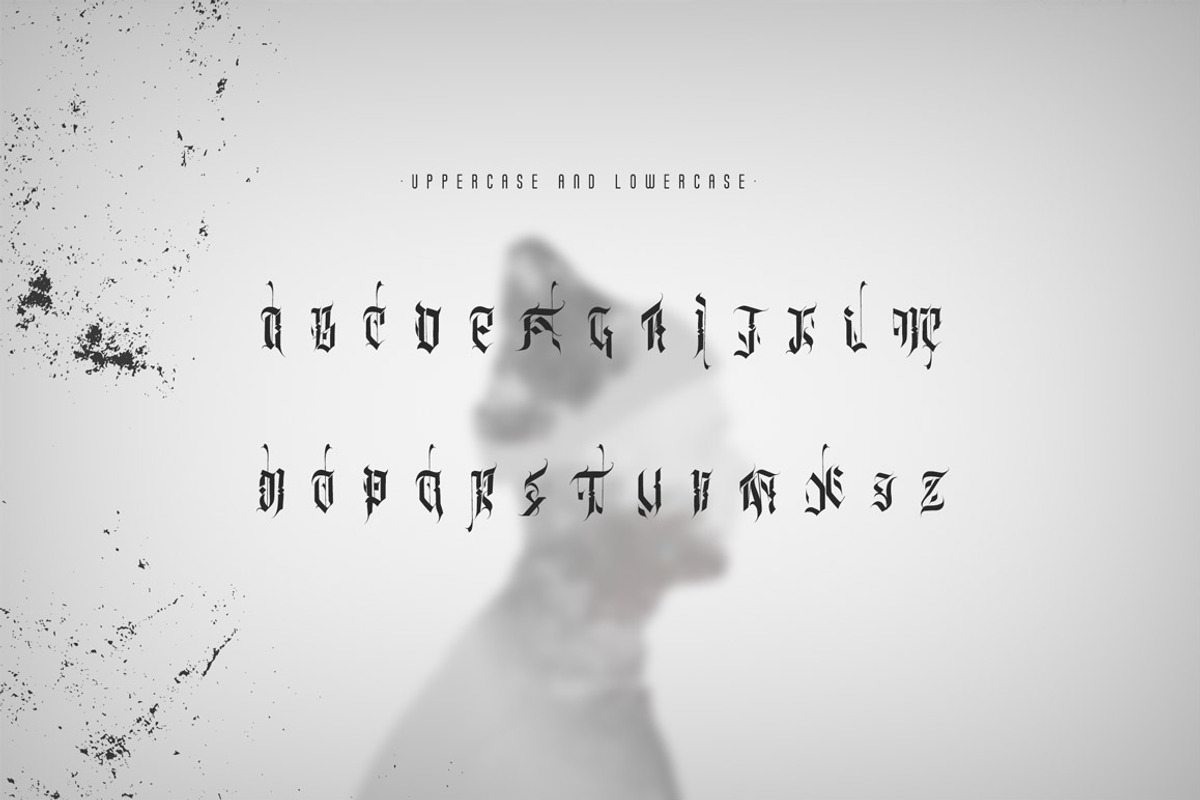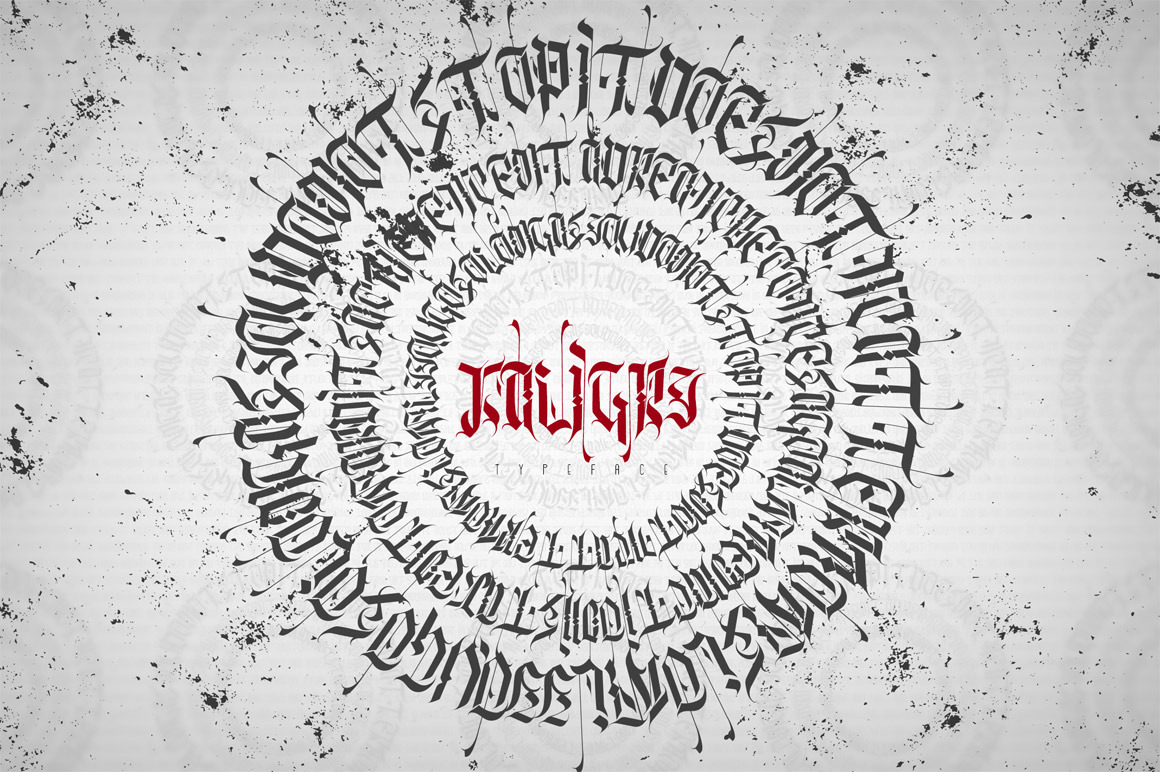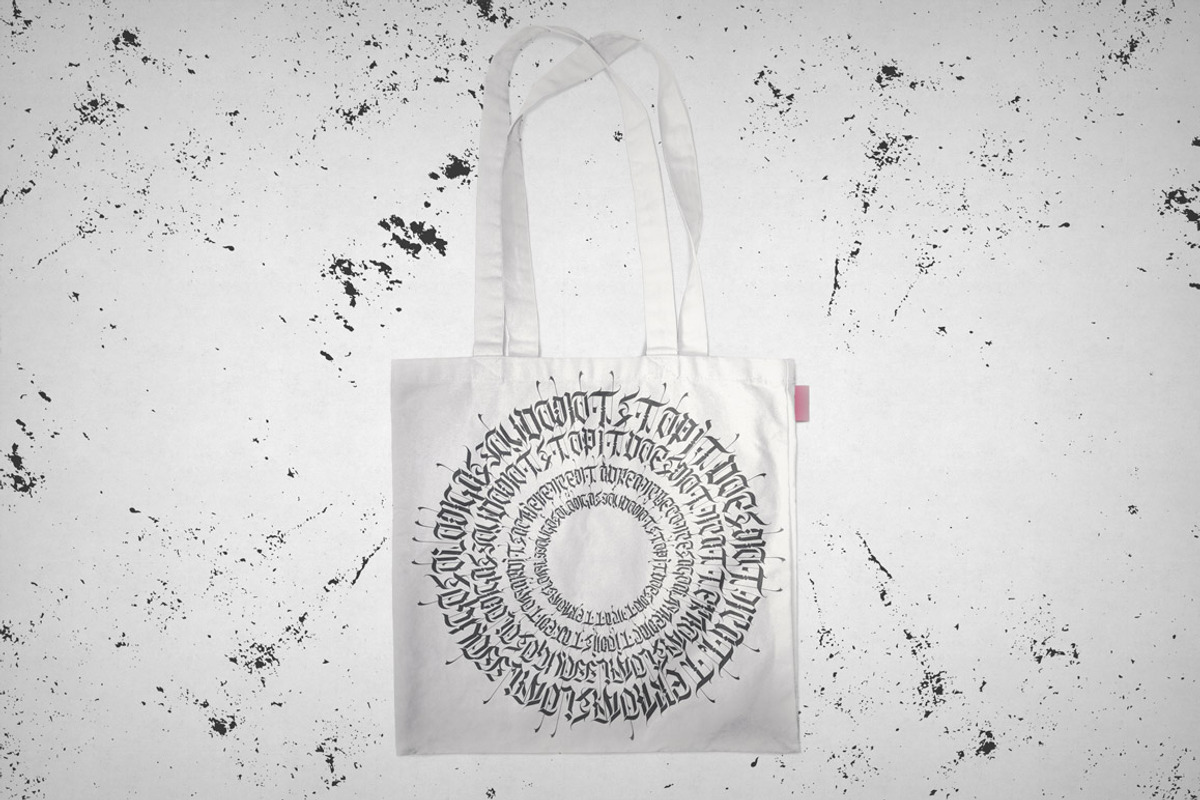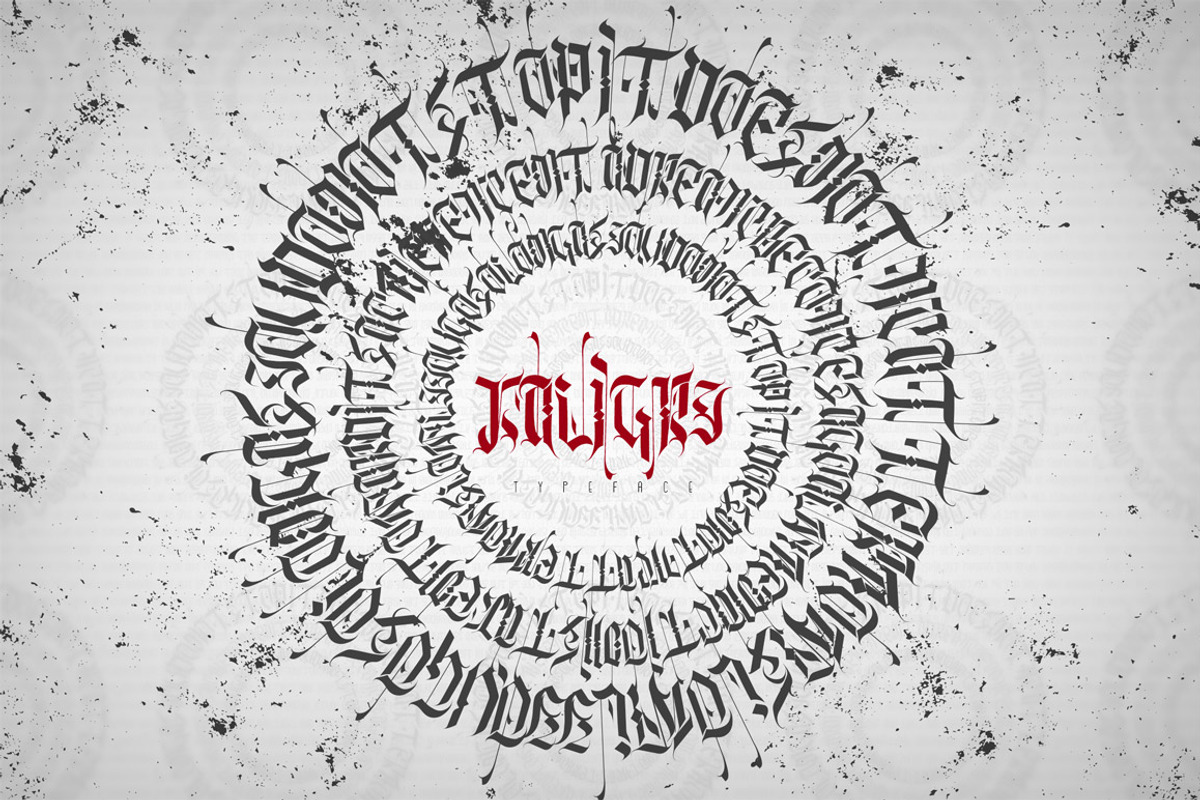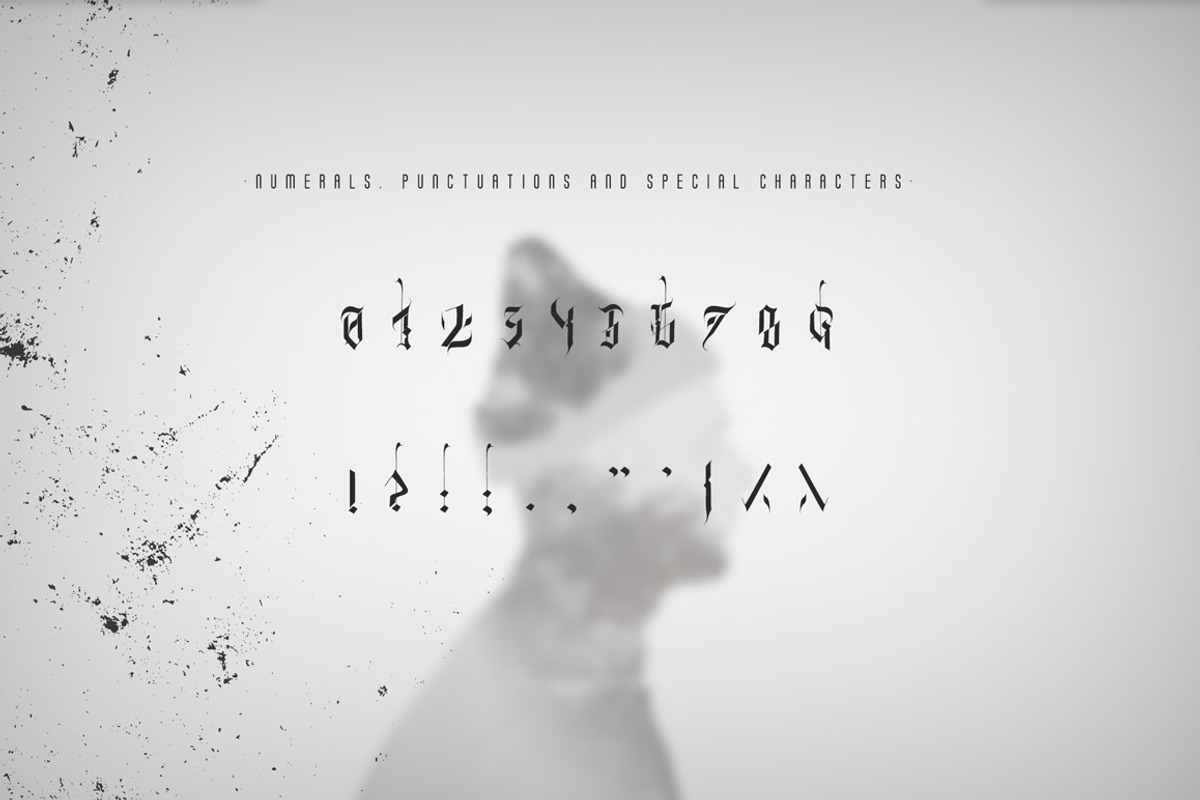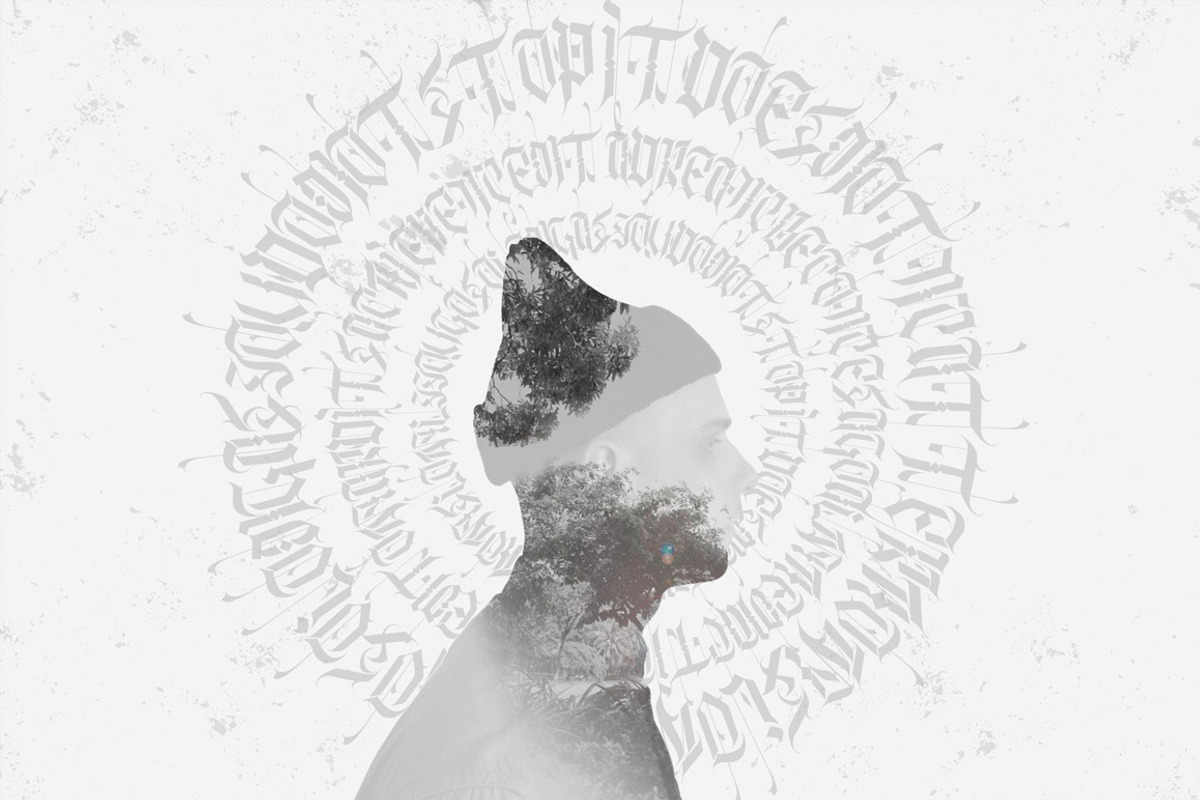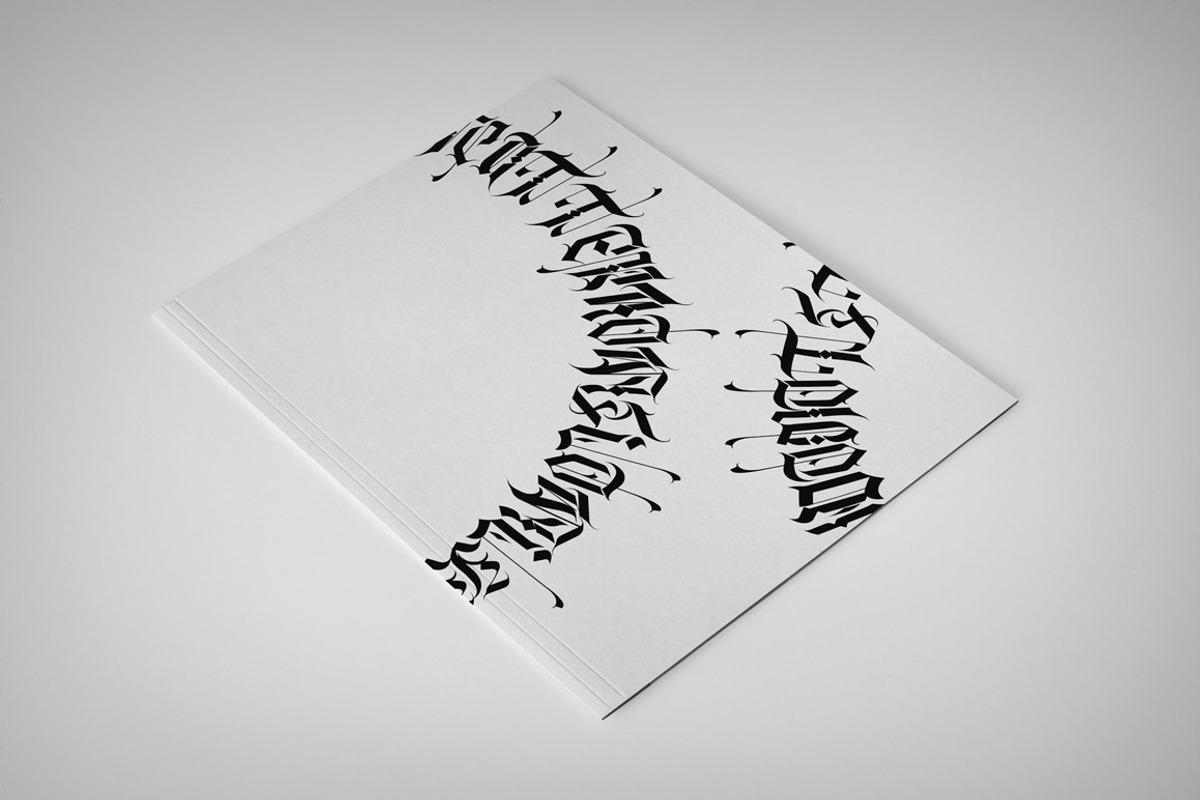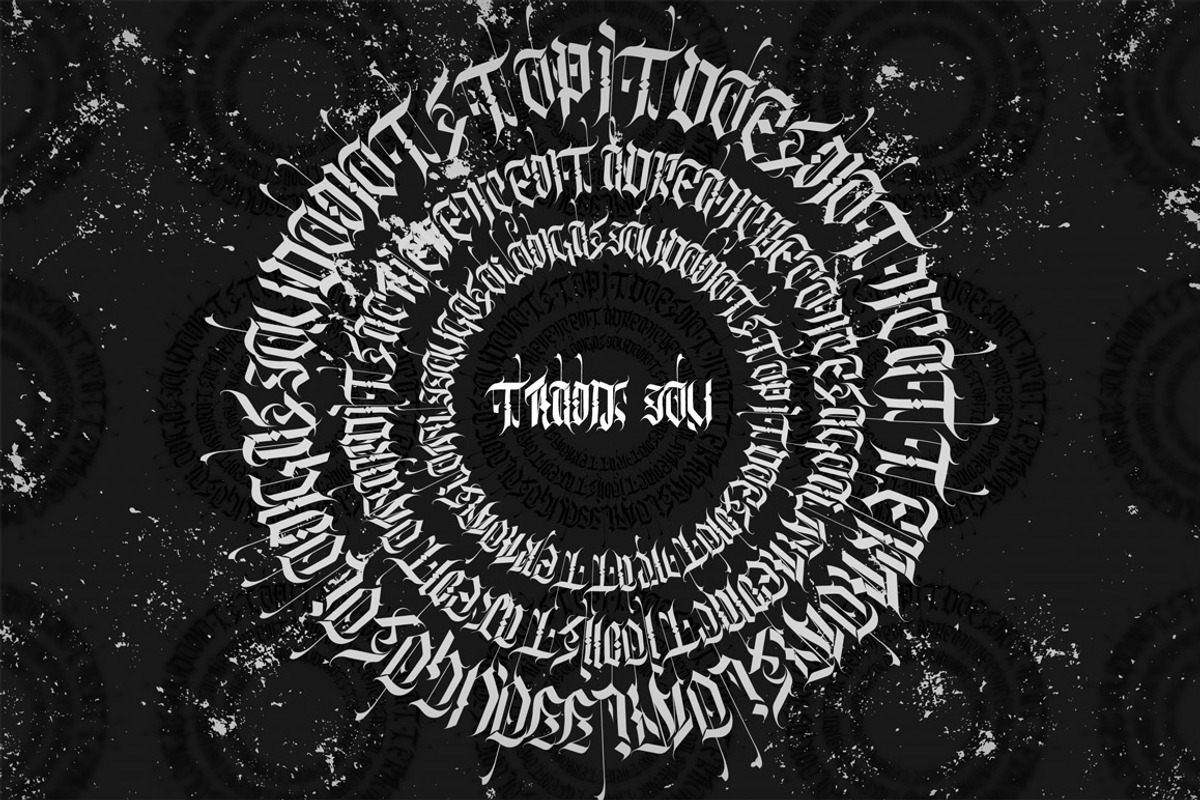
Kaligry Font
Kaligry is a unique typeface.
This is font would be perfect to combine in your design with arabic or gothic style. The font is great for product logo, clothing brand, prints, invitation, business cards and much more. Kaligry packs a set of uppercase, numbers and punctuation.
- Numerals, punctuations and special characters